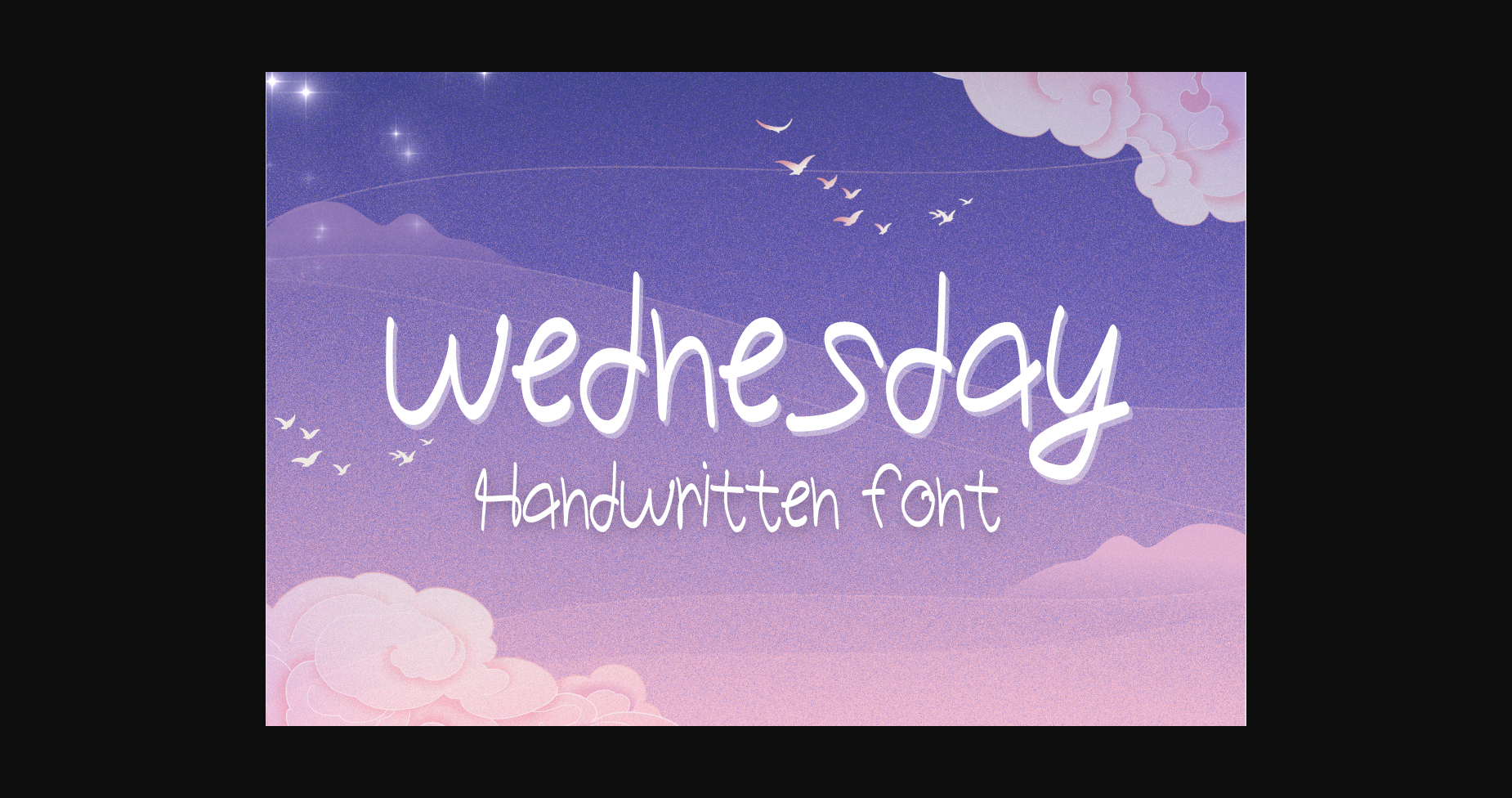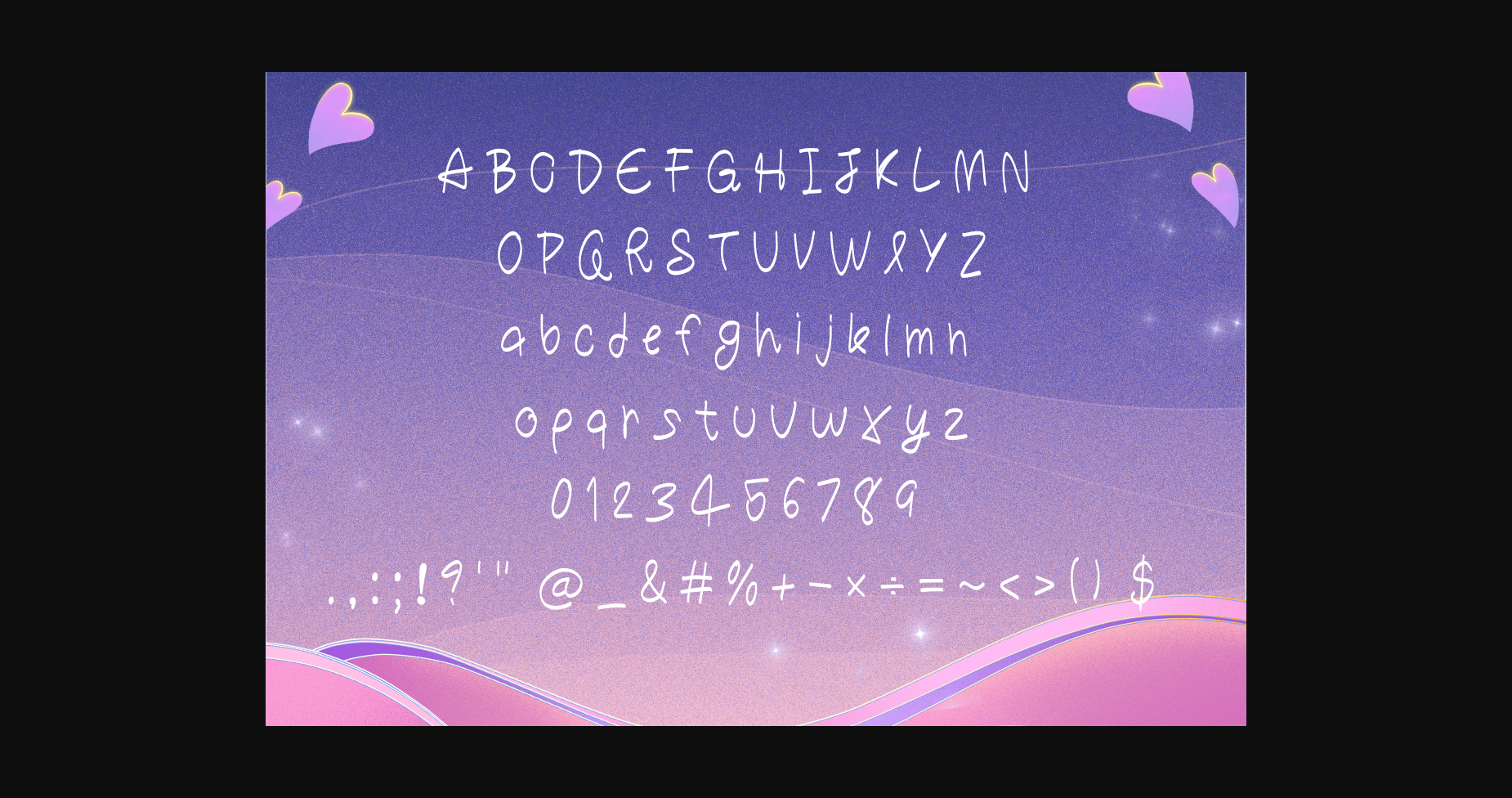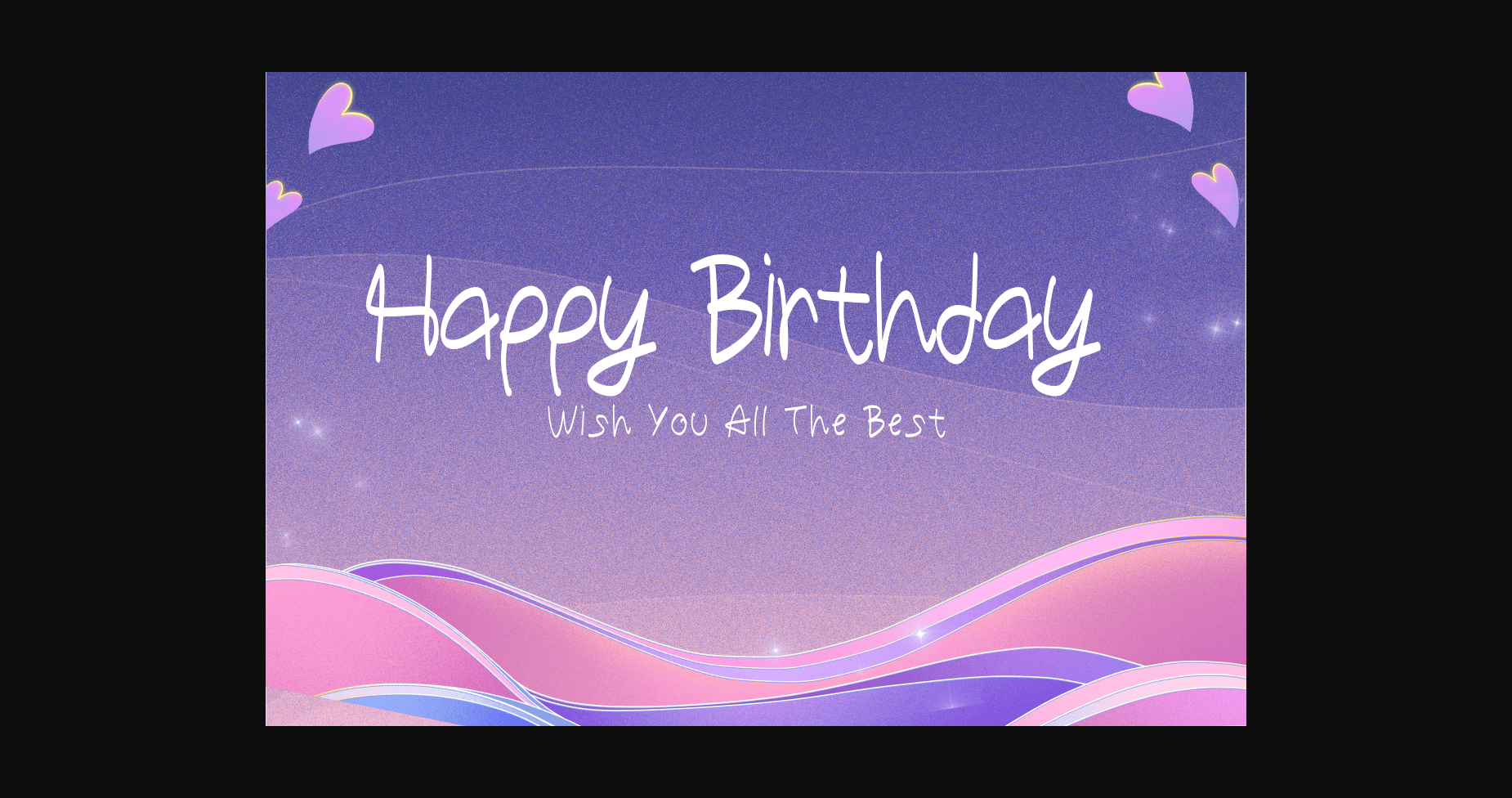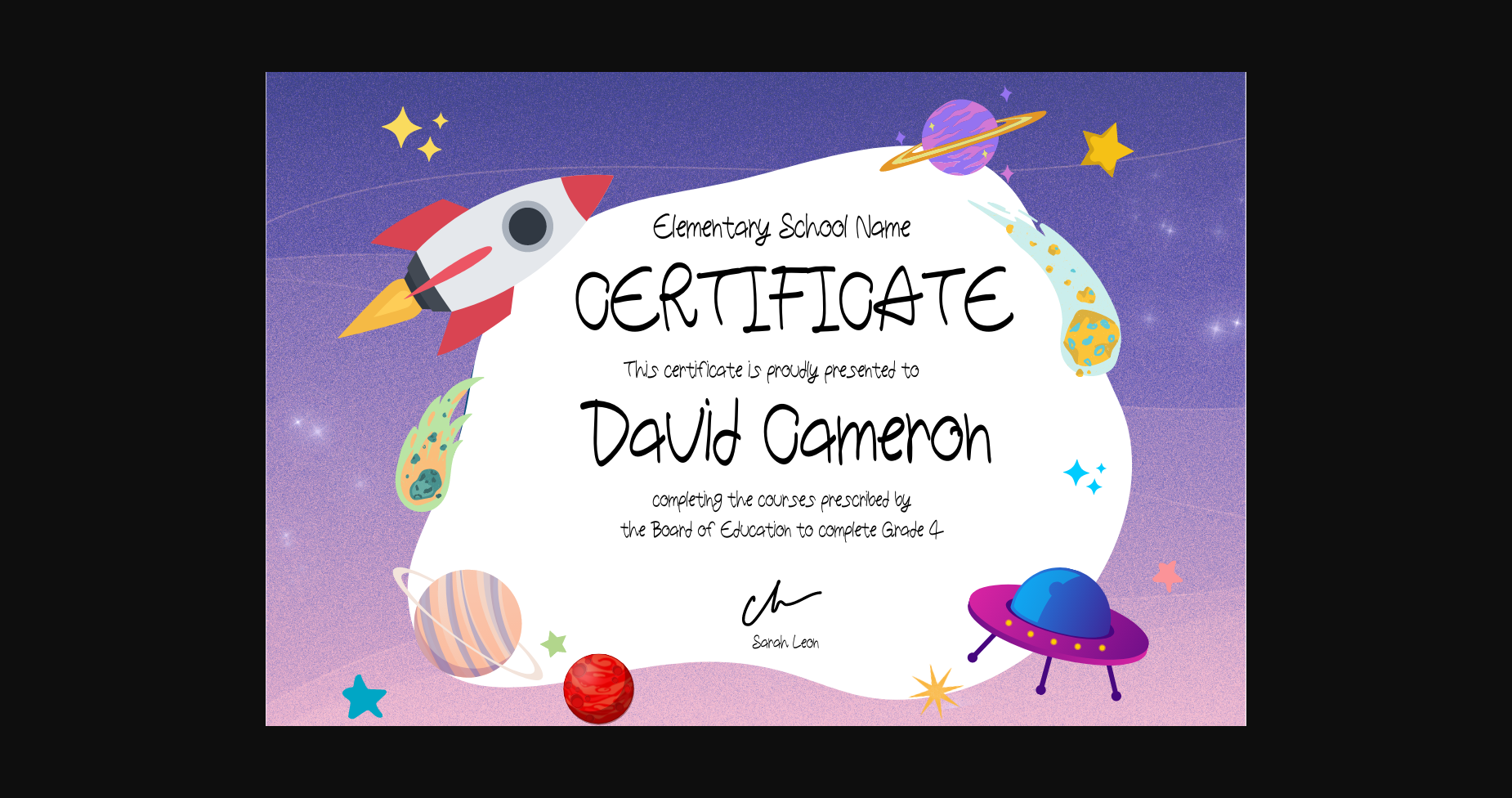
About Wednesday Font
Wednesday is a handwritten font. You can use it for taking notes, writing a diary, or making greeting cards. However, you can still use it for other designs, such as banners, content, mugs, cards, shirts, stationery, social media posts, and more!